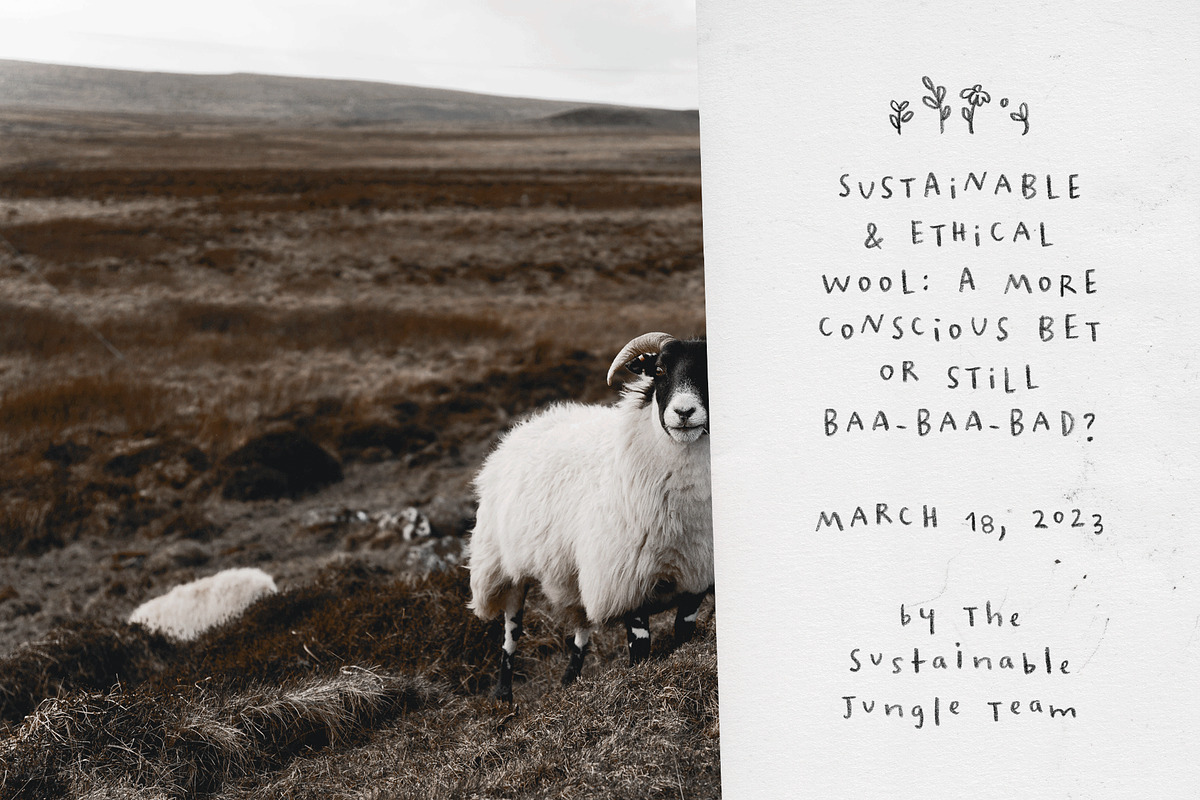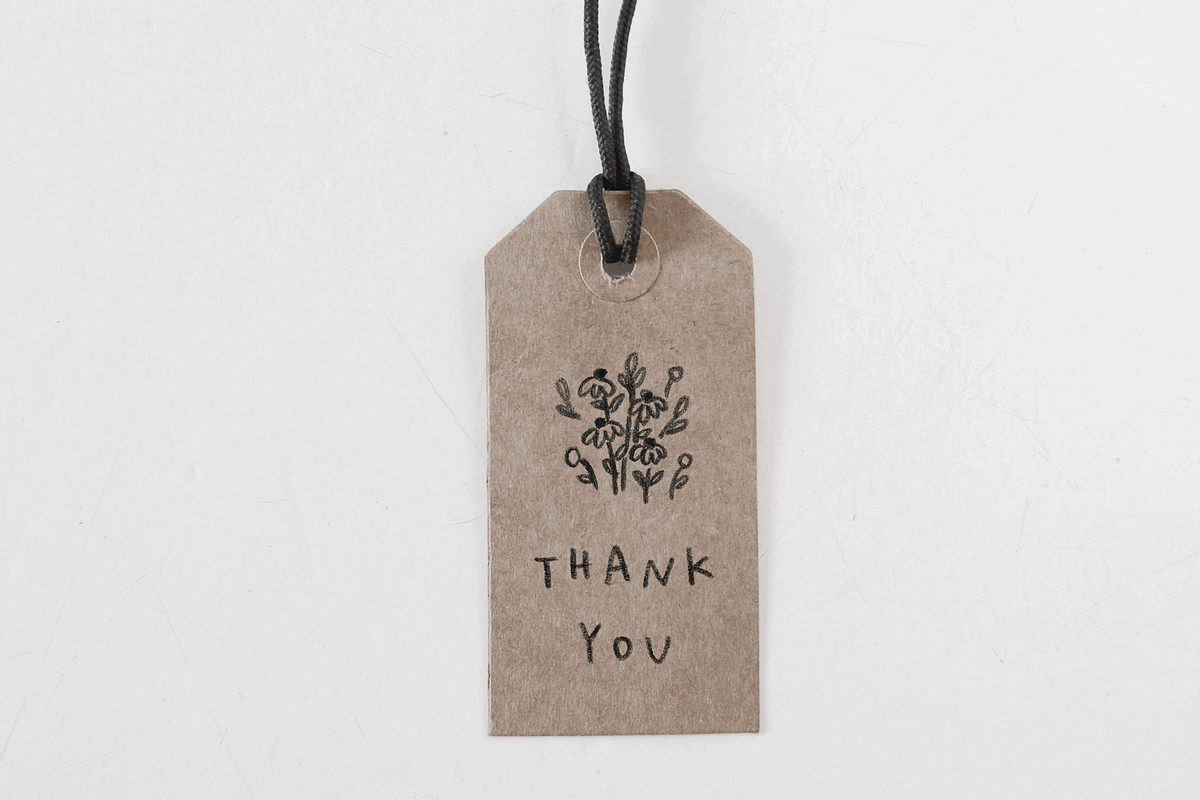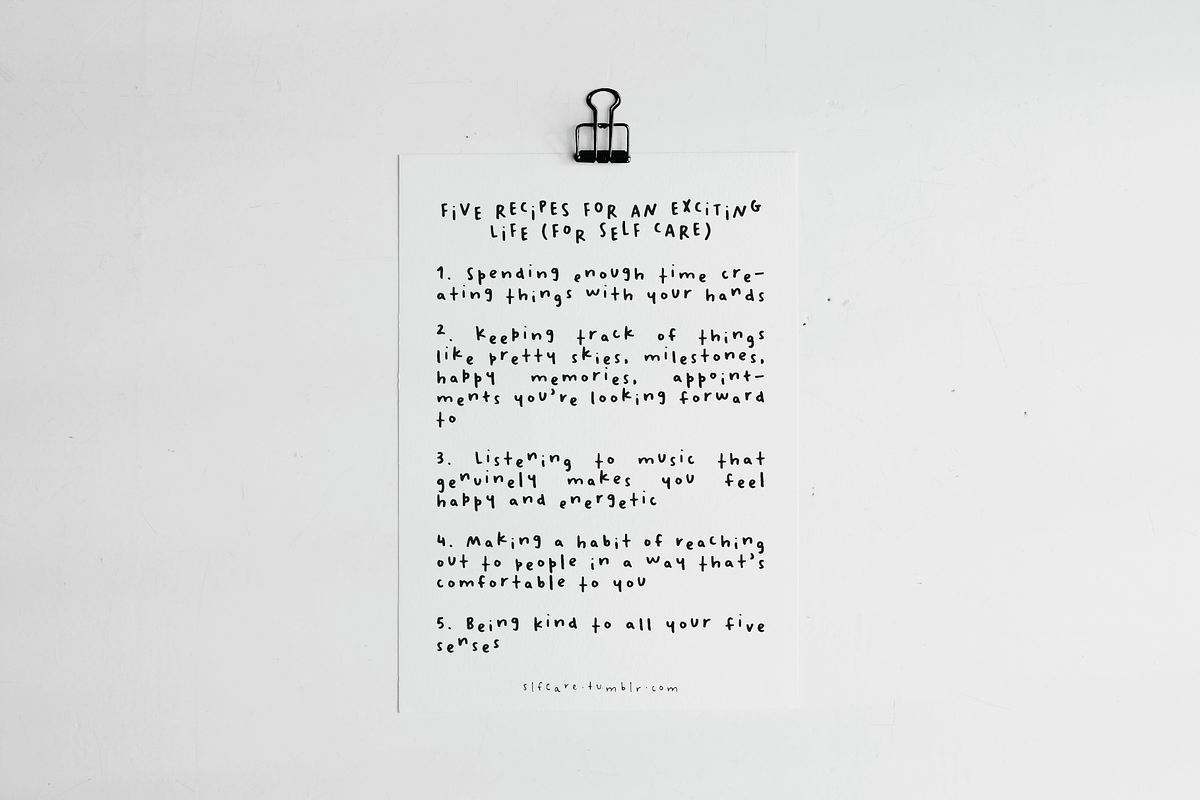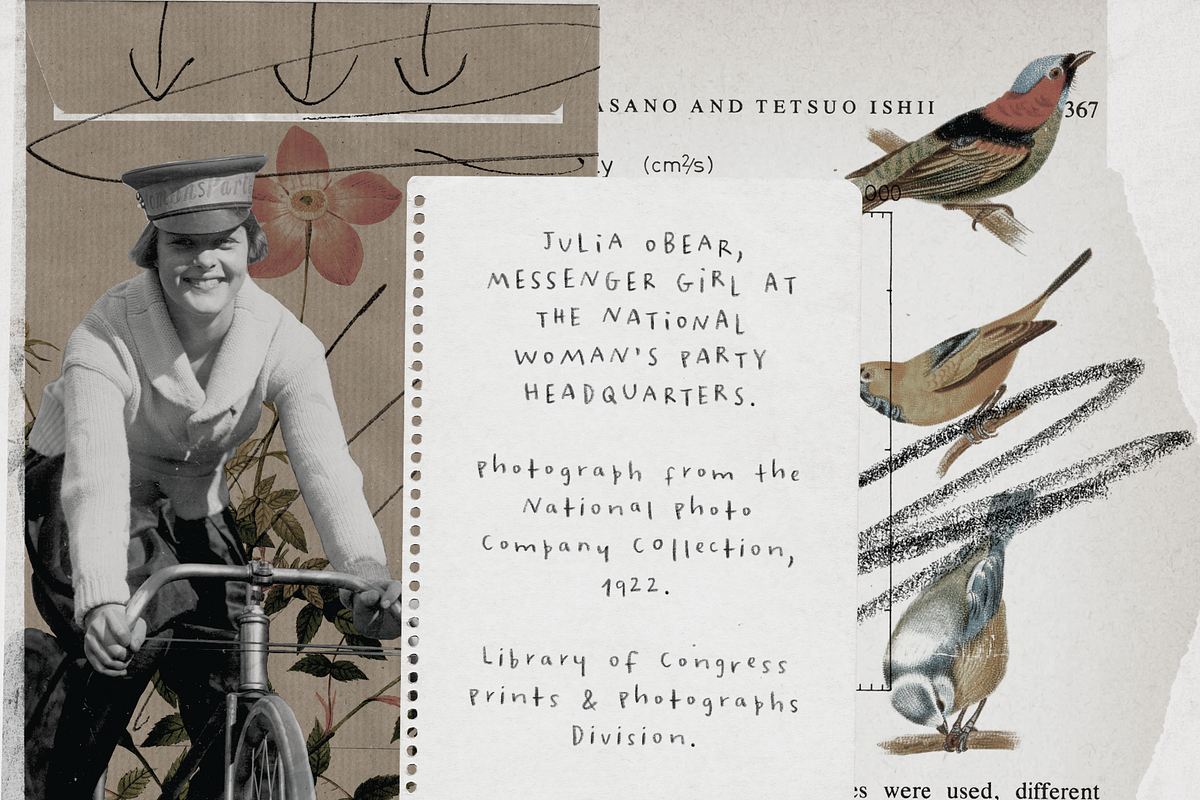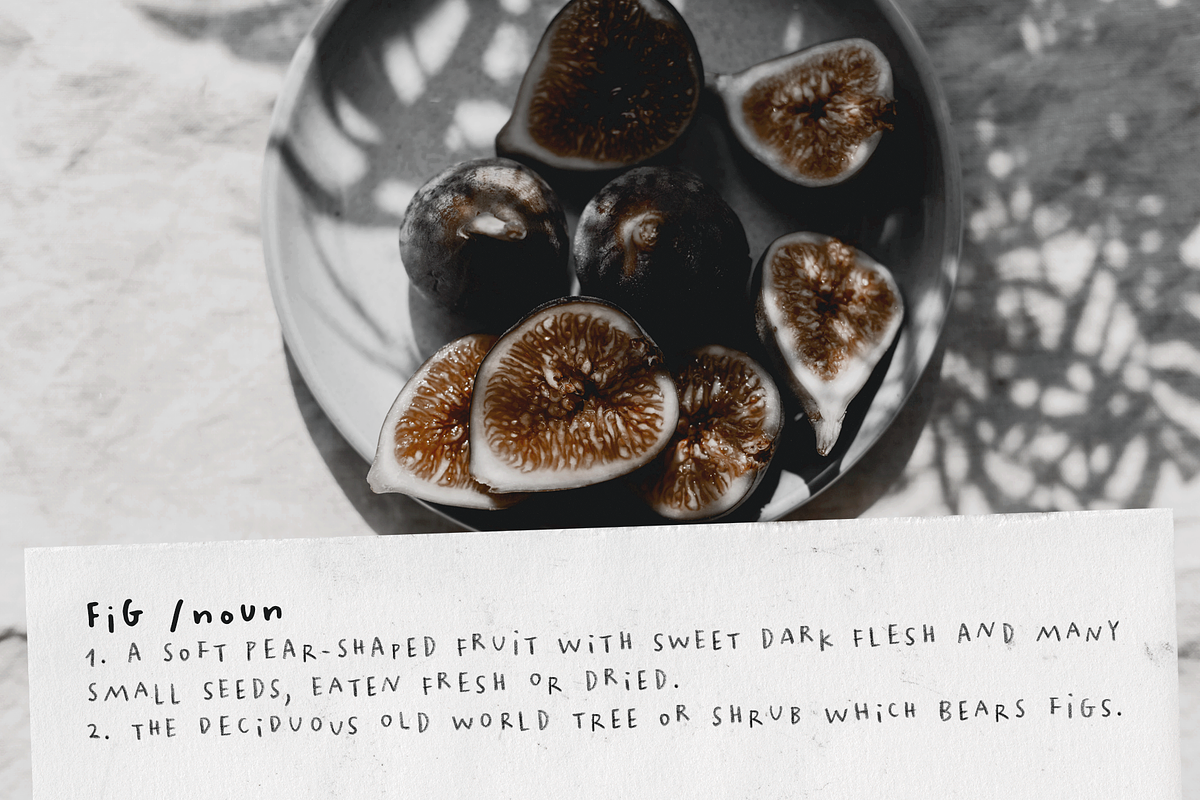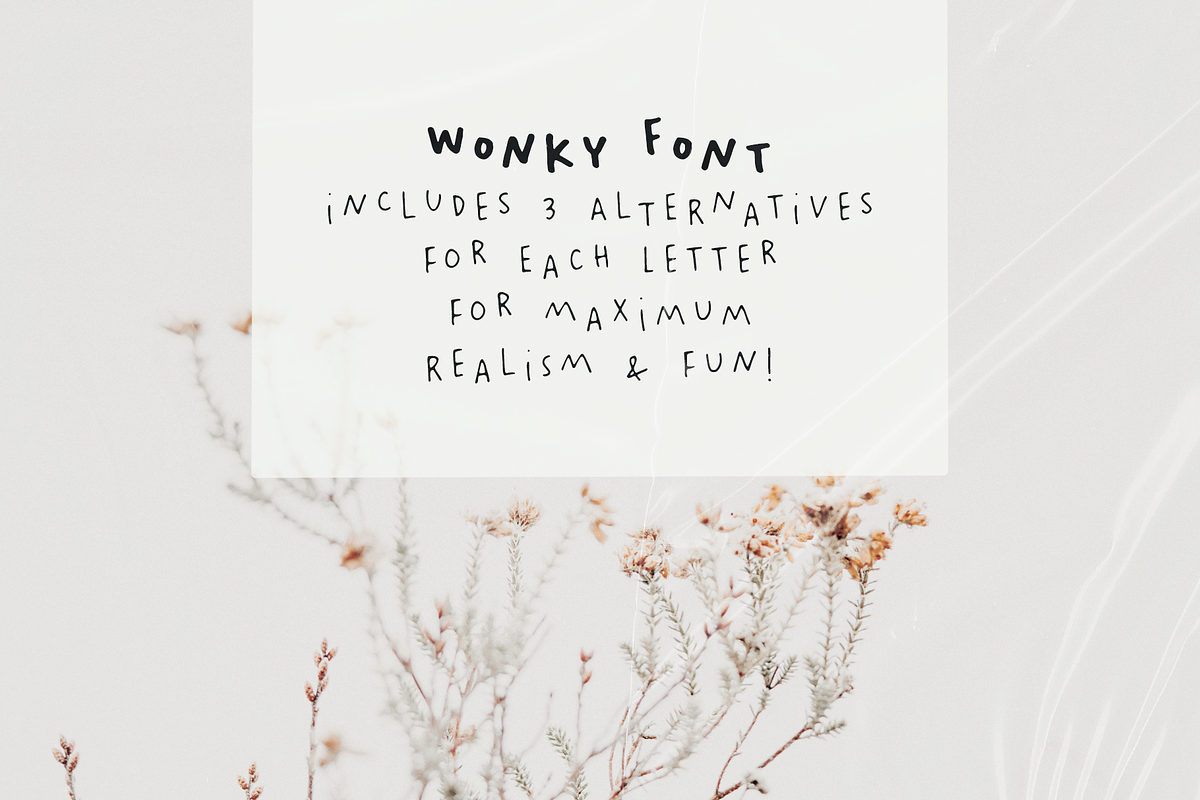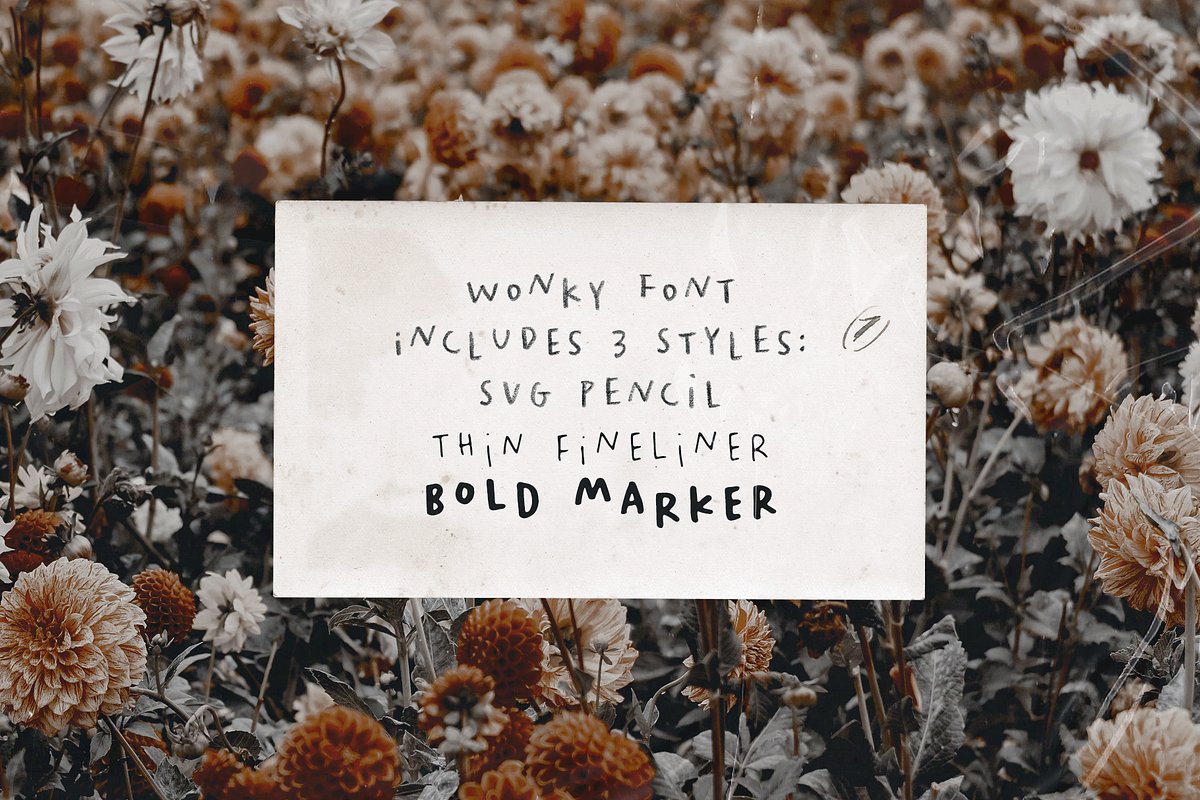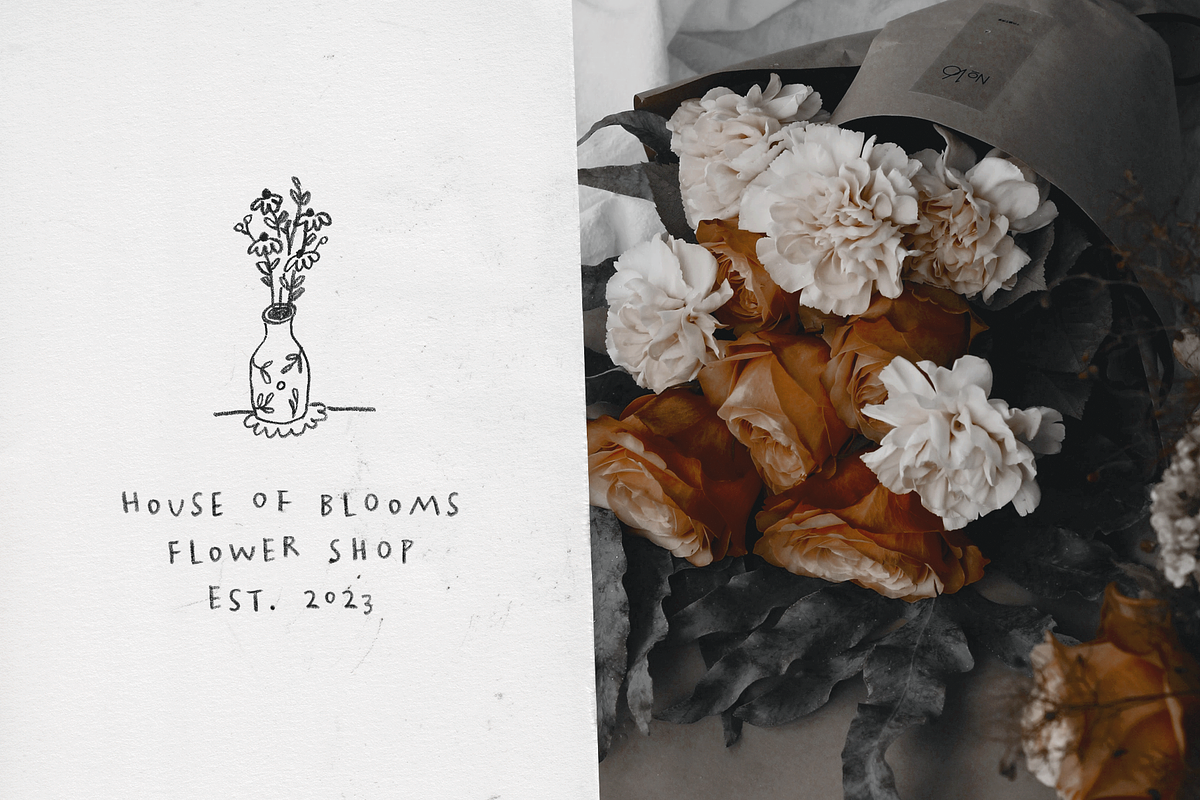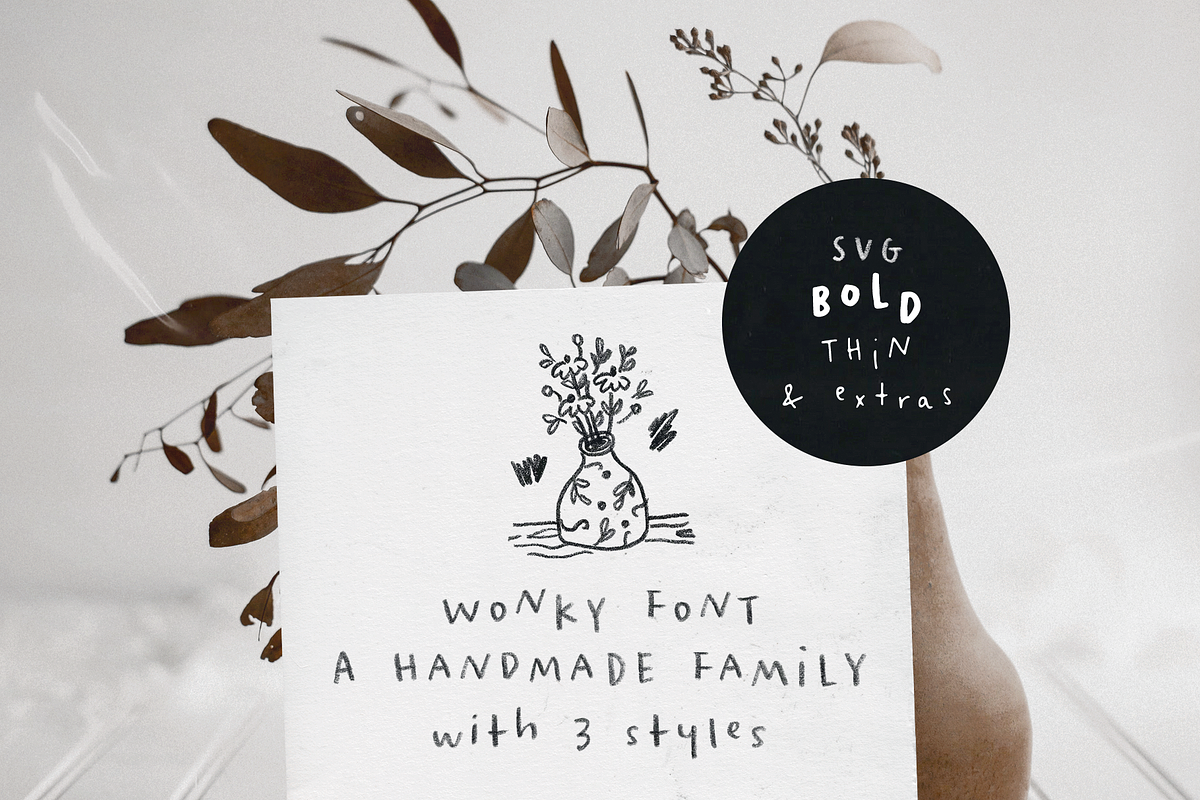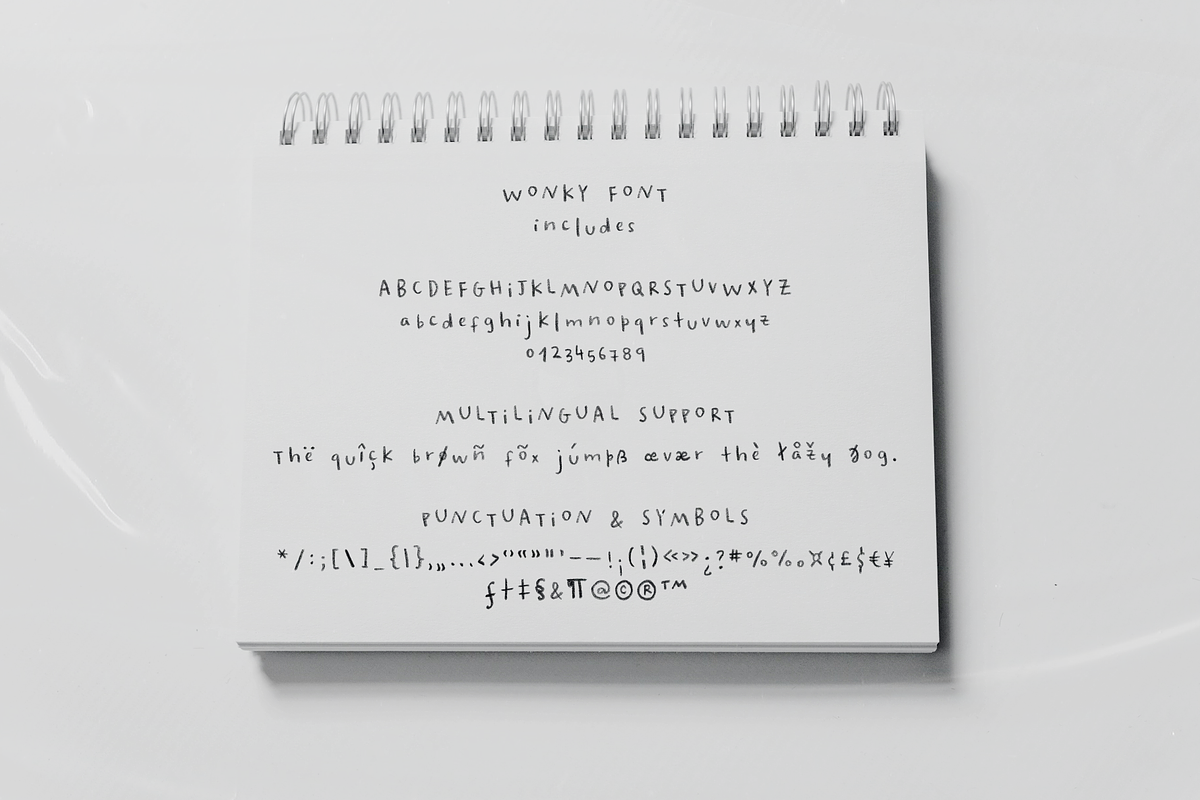
Wonky SVG Font And Extras
The Wonky Font family is a set of 3 handmade fonts, made using three different materials: a pencil, a thin fineliner and a bold marker. Each font includes 3 variations for each letter and number, accessible through contextual alternates, for extra realism and fun. The pencil font is a SVG font, which allows for the texture of the pencil to be captured in a more authentic way, and is complemented with an extra doodles font. Wonky Font looks good at small sizes and will also look great in all caps texts. Use Wonky Font in designs such as postcards and notes, posters, logotypes, social media posts, branding and packaging.
- a Wonky Pencil SVG font, with a vector alternative that preserves the texture
- a Wonky Thin font
- a Wonky Bold font
- a Wonky SVG Extras font, with 26 pencil doodles